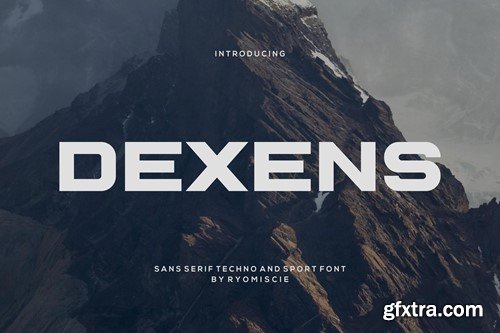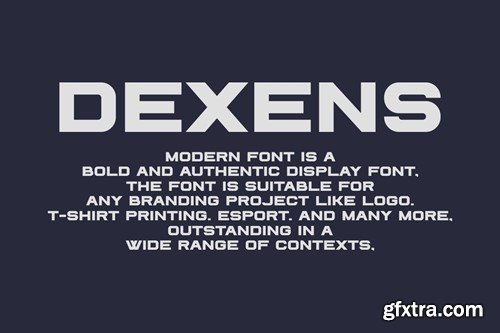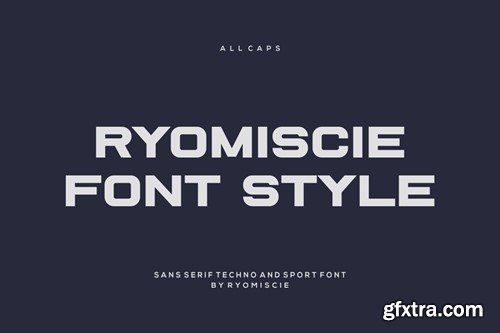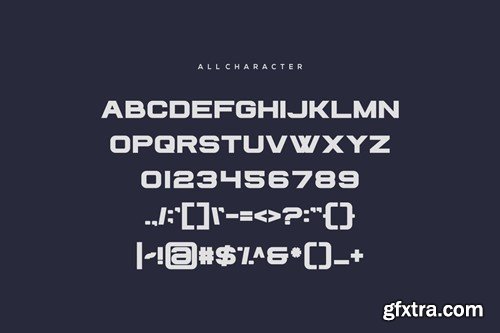
Dexens - Techno And Sport Font
Introducing our new product Dexens Font - Modern Font is a bold and authentic display font. The font is suitable for any branding project like logo, t-shirt printing, esport, and many more. outstanding in a wide range of contexts. availlable